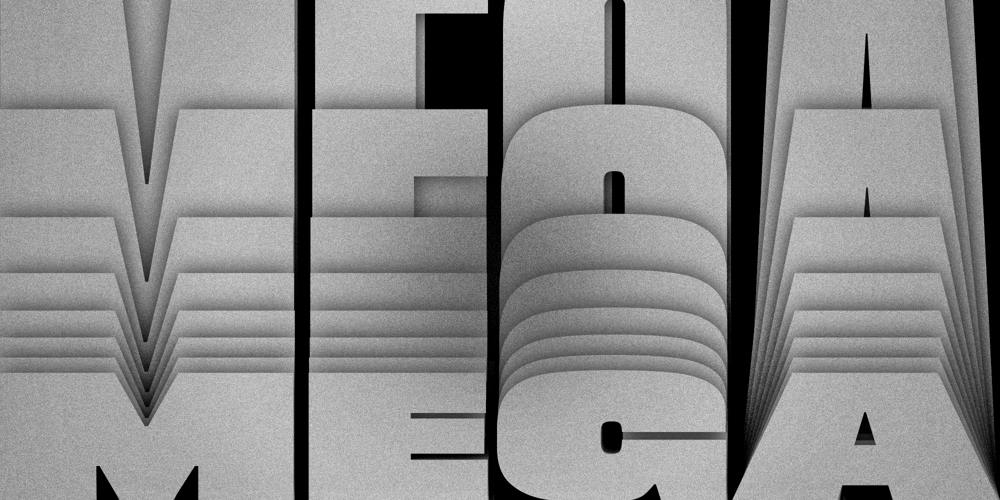
Mega VF
Mega VF font
Mega VF Font Family was designed by Matthieu Salvaggio and published by Blaze Type. Mega VF contains 1 styles and family package options. Mega, a neo-grotesque family inspired by the fascinating size relationship between the infinitely large and the infinitely small. This solid linear neo-grotesque typeface, whose shapes can be inspired by the wooden typefaces of historic posters such as Rob Roy Kelly’s work, is specially designed for large formats to give you an imposing and captivating presence. Whether you want to create striking posters, impressive banners or powerful headlines, this display typeface will meet all your expectations. Mega is available in nine weights, giving you to ability to design project in small or large formats, from Nano (Ultra Condensed with rectangular counter shapes) to Tera (Ultra Black Extended with rounded counter shapes). Discover the power of the infinitely large and infinitely small at your fingertips with Mega.